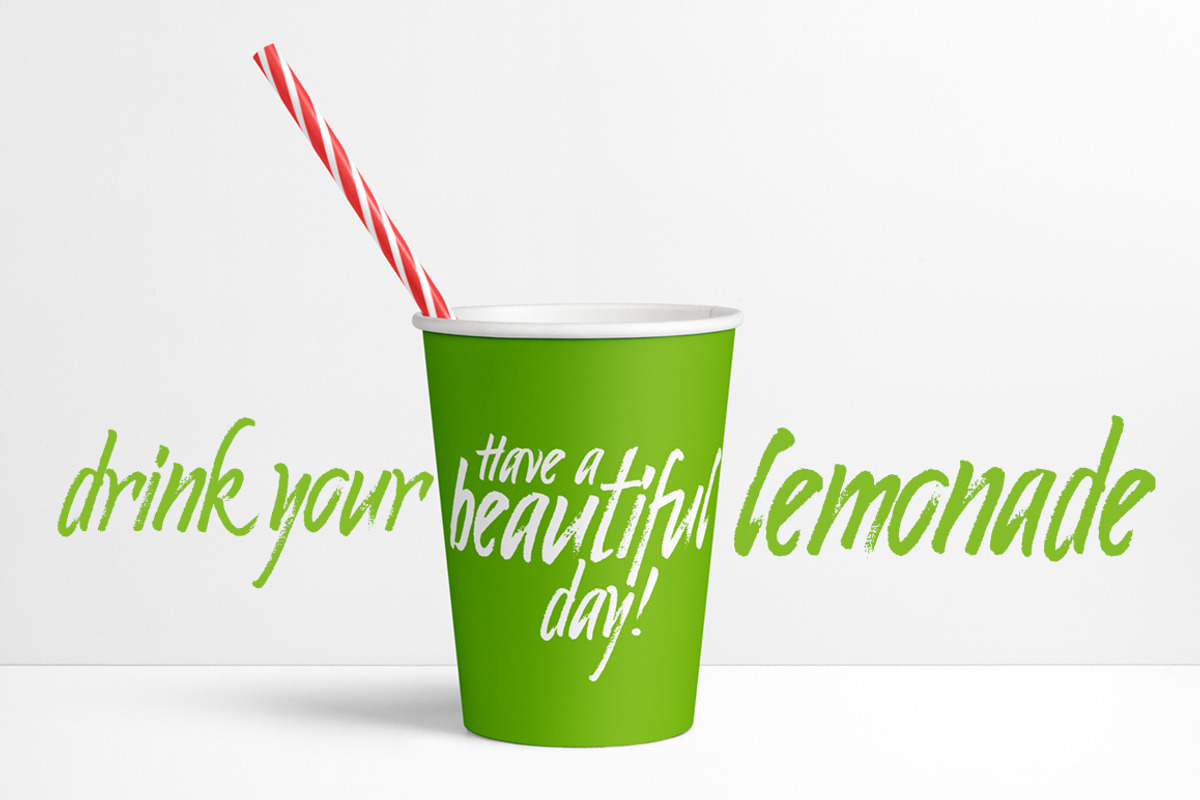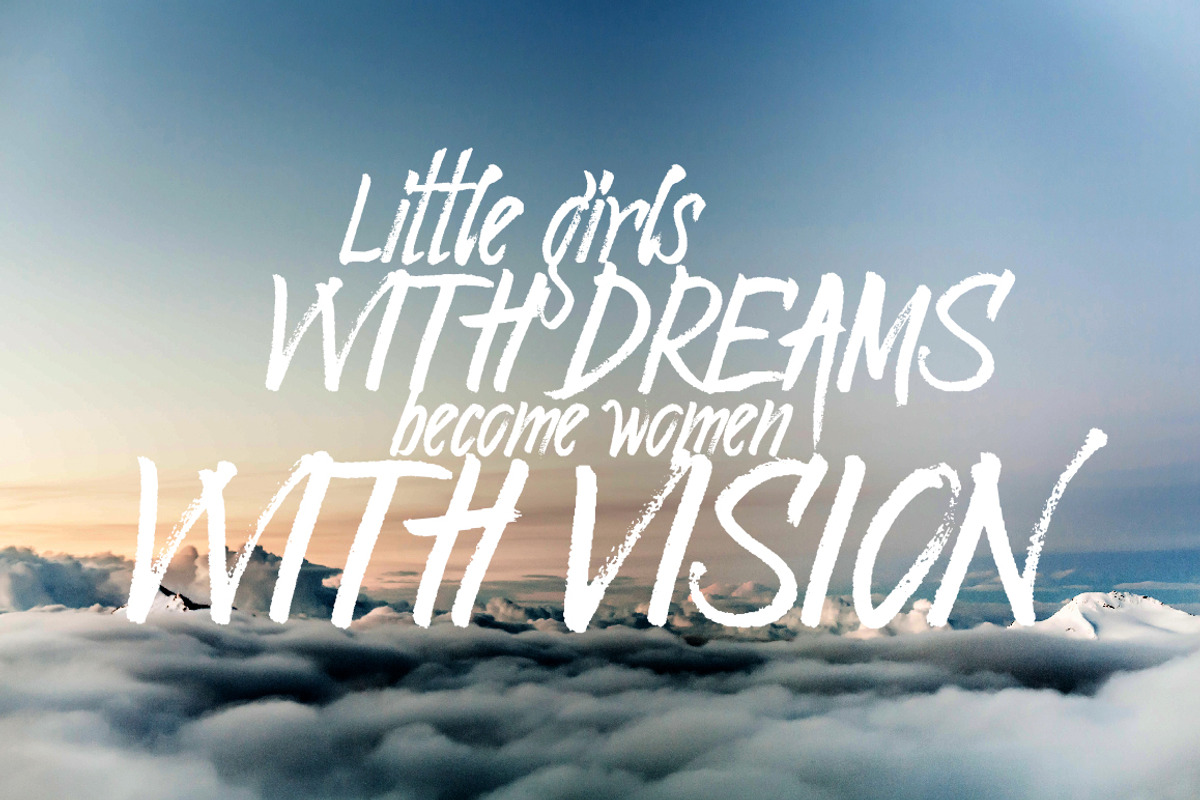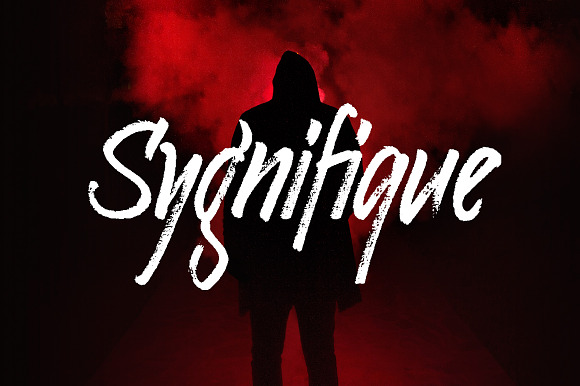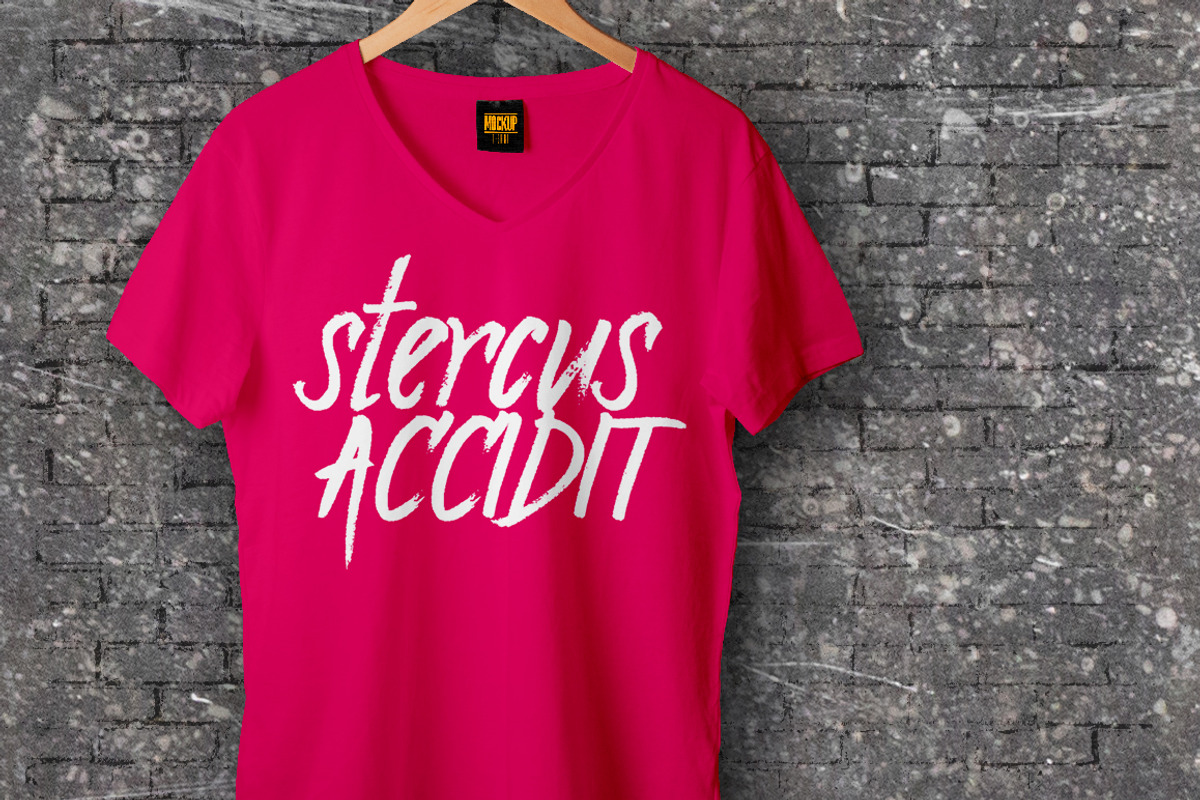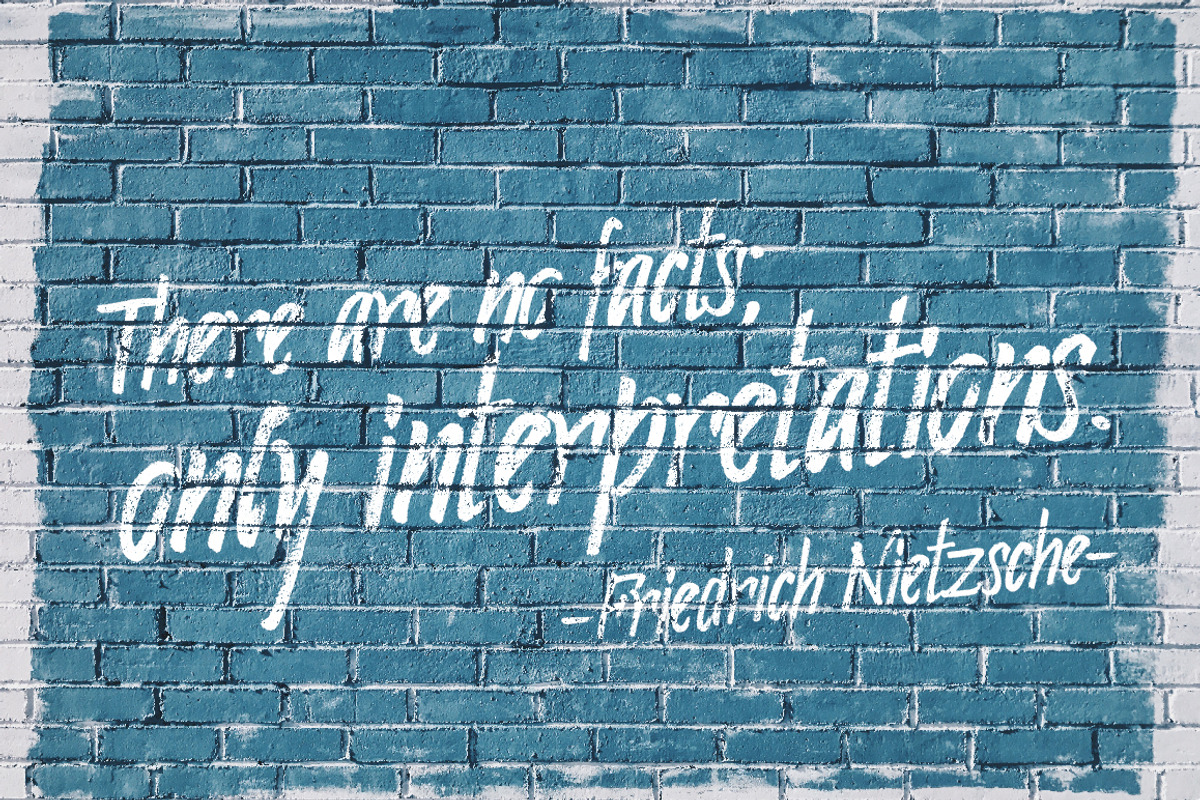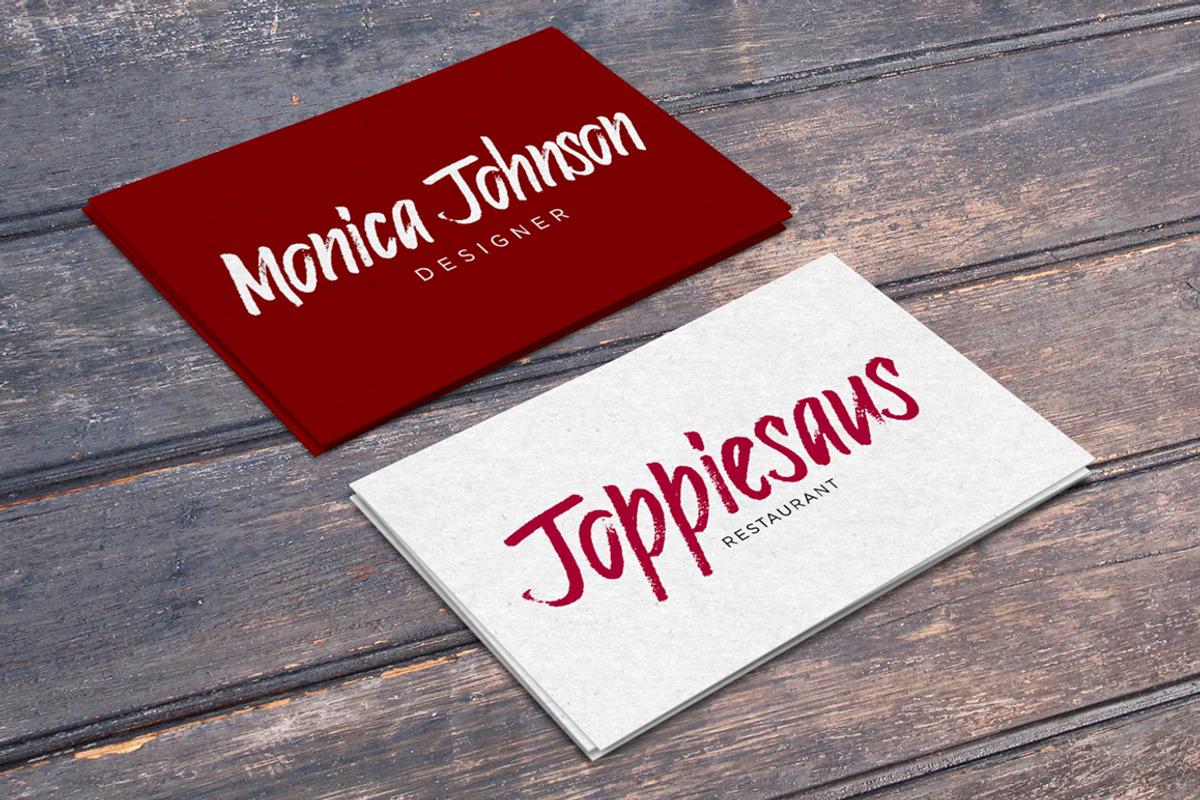
Sygnifique Brush Marker Font
Sygnifique is a rough handwritten font made with brush marker. Freestyle, careless and charismatic.
Sygnifique Brush Marker Font by lissius fits naturally into Branding, posters, packaging, typography.